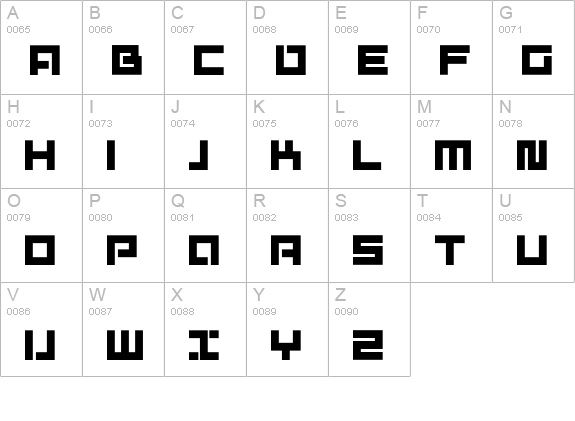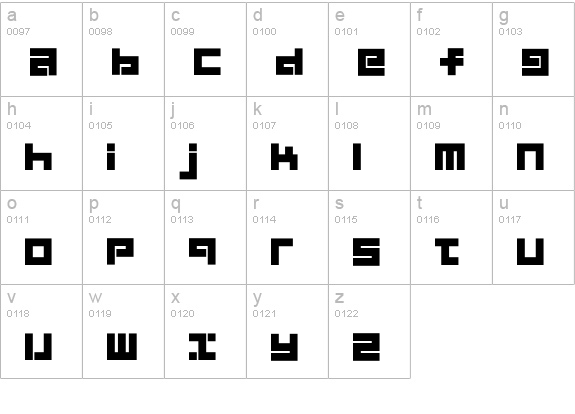
D3 Mouldism Alphabet Font Details
Introducing the captivating and innovative D3 Mouldism Alphabet font, a true testament to the power of creativity and design. This remarkable font showcases a harmonious blend of boldness and elegance, making it perfect for a wide range of projects. The D3 Mouldism Alphabet font embodies a unique aesthetic that effortlessly marries modernism with a touch of artistic flair. Its meticulously crafted letterforms are characterized by clean lines, geometric shapes, and an overall sense of balance, resulting in a visually striking and memorable typeface. With its versatility and versatility, the D3 Mouldism Alphabet font can be seamlessly incorporated into various design projects. Whether you're working on branding, packaging, editorial design, or even digital projects, this font will undoubtedly elevate your work to new heights. One of the remarkable aspects of the D3 Mouldism Alphabet font is that it is freely available to download at FontsMarket.com. This means that designers, enthusiasts, and creatives alike can access and utilize this exceptional font without any cost. Its accessibility allows for greater inclusivity, empowering individuals to express their ideas and visions without any limitations. Furthermore, the D3 Mouldism Alphabet font offers a wide range of characters, including uppercase and lowercase letters, numerals, punctuation marks, and special symbols. This comprehensive selection ensures that you have all the tools necessary to bring your design concepts to life with precision and creativity. Immerse yourself in the world of D3 Mouldism Alphabet font and witness the transformative power it possesses. Its ability to capture attention, evoke emotion, and communicate messages effectively is unparalleled. Elevate your designs, inspire your audience, and make a lasting impression with this remarkable font that is freely available to download at FontsMarket.com.